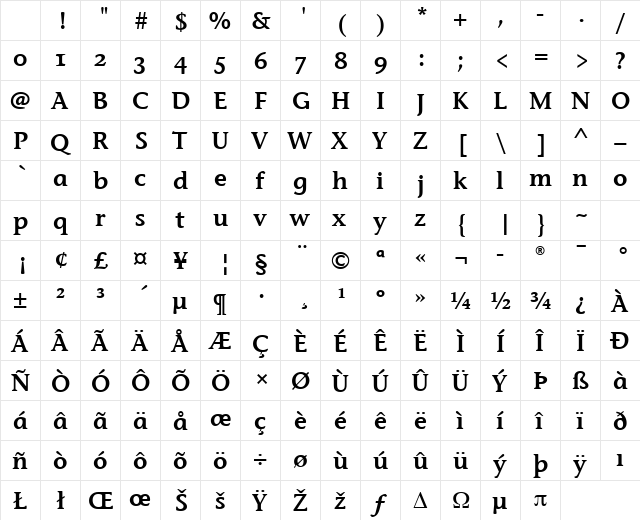
Stone Inf Sem OS ITC TT Semi
Design Context for Stone Inf Sem OS ITC TT
Stone Inf Sem OS ITC TT is a composed and adaptable typeface that performs quietly and consistently across a wide range of design contexts.
Pro Tip: Use Stone Inf Sem OS ITC TT in both headline and body roles to test its range before committing to a single application.